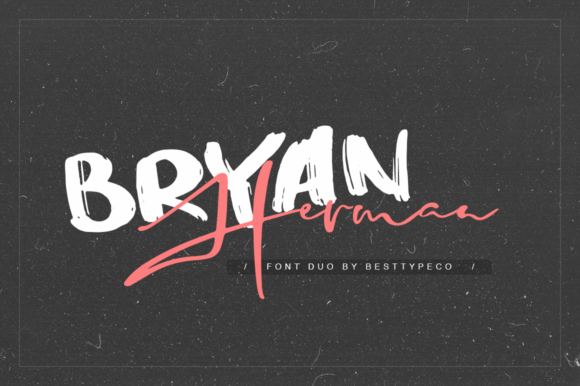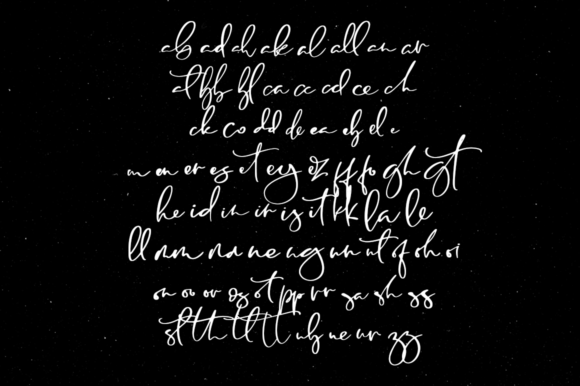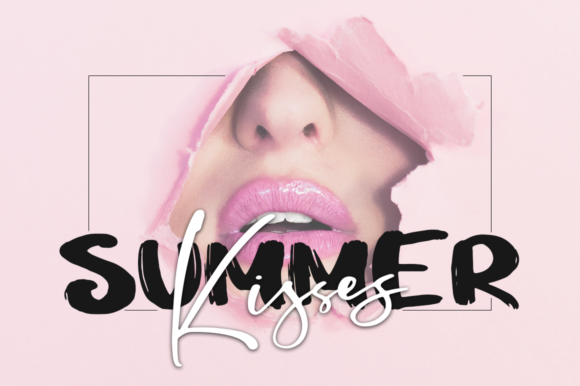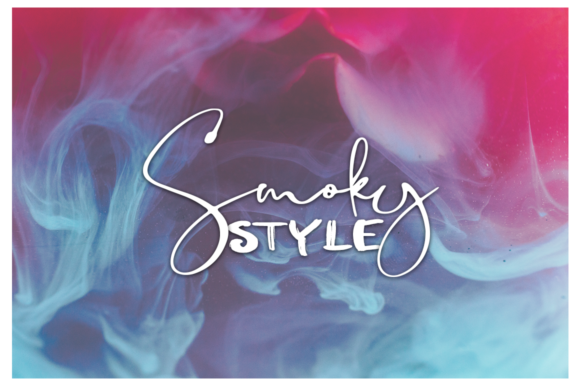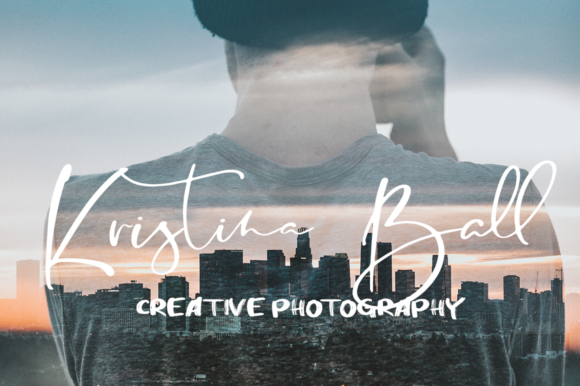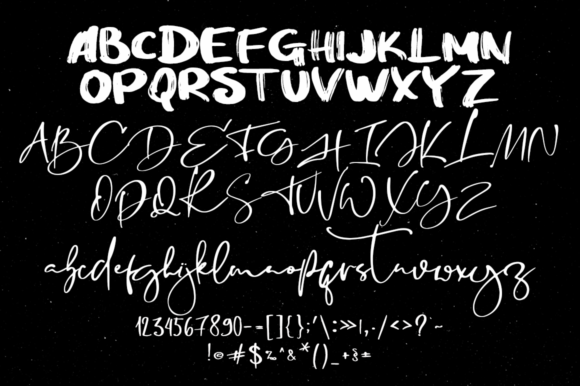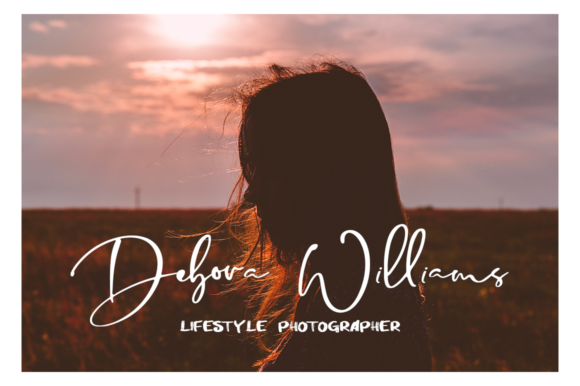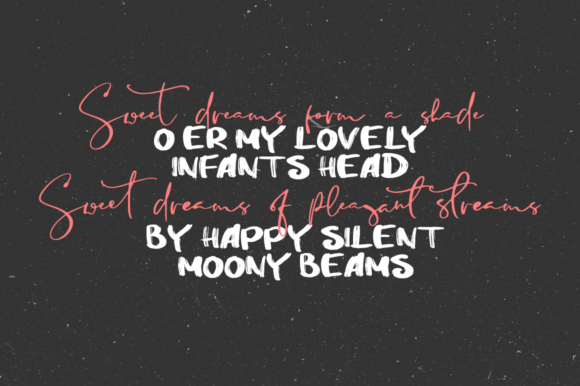
Bryan Herman Font
About Bryan Herman Font
The Bryan Herman is a fresh, handmade calligraphy font.
Very suitable for greeting cards, branding materials, business cards, quotes, posters, and more!